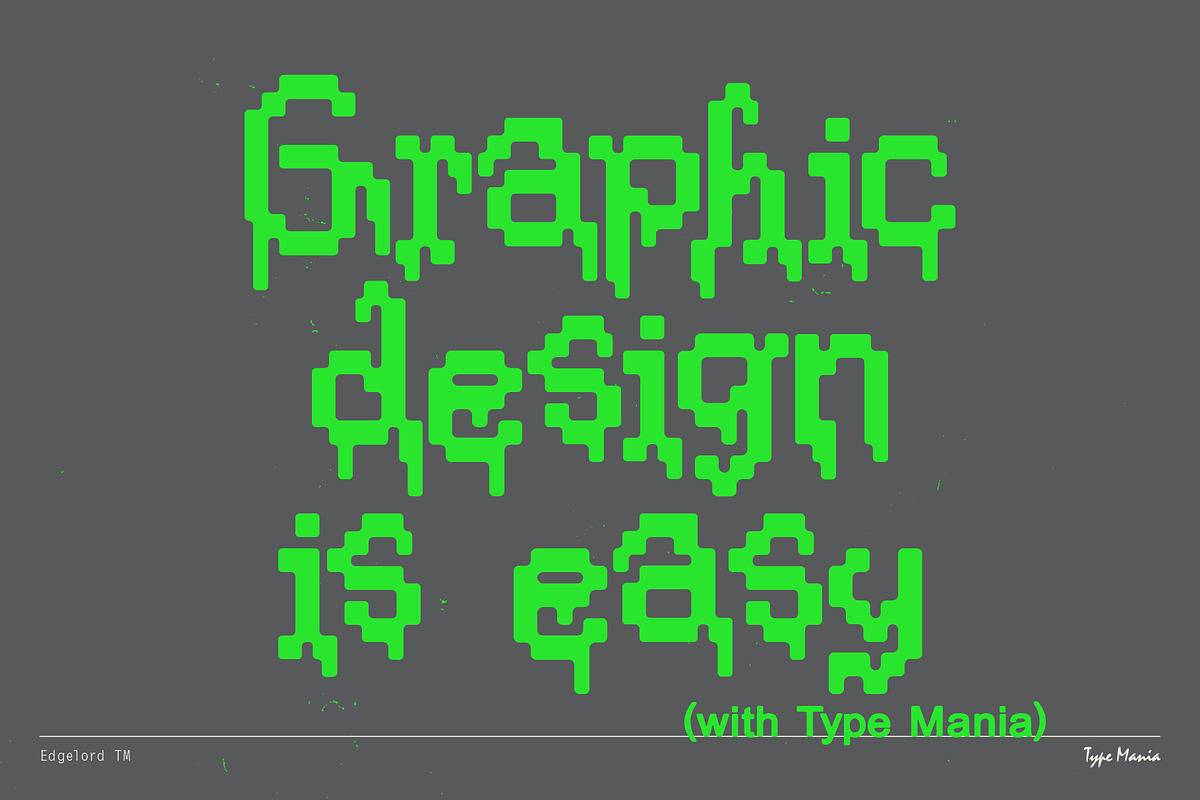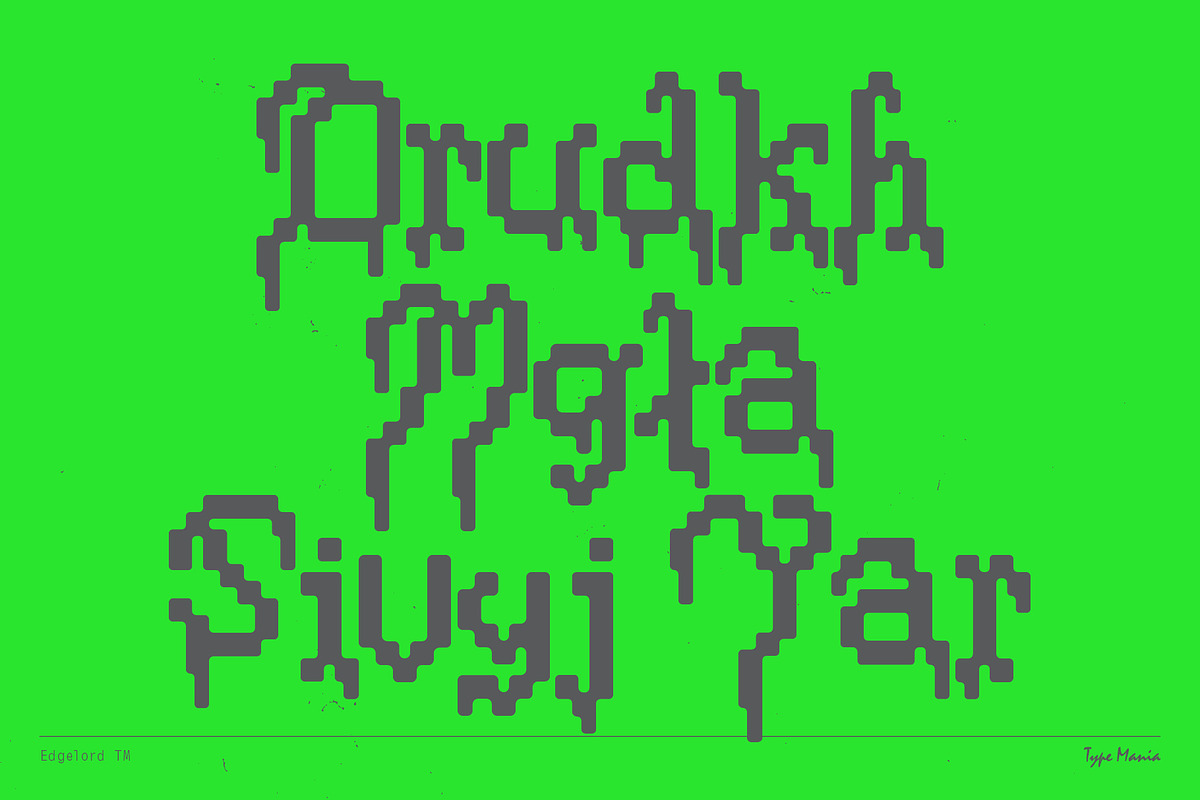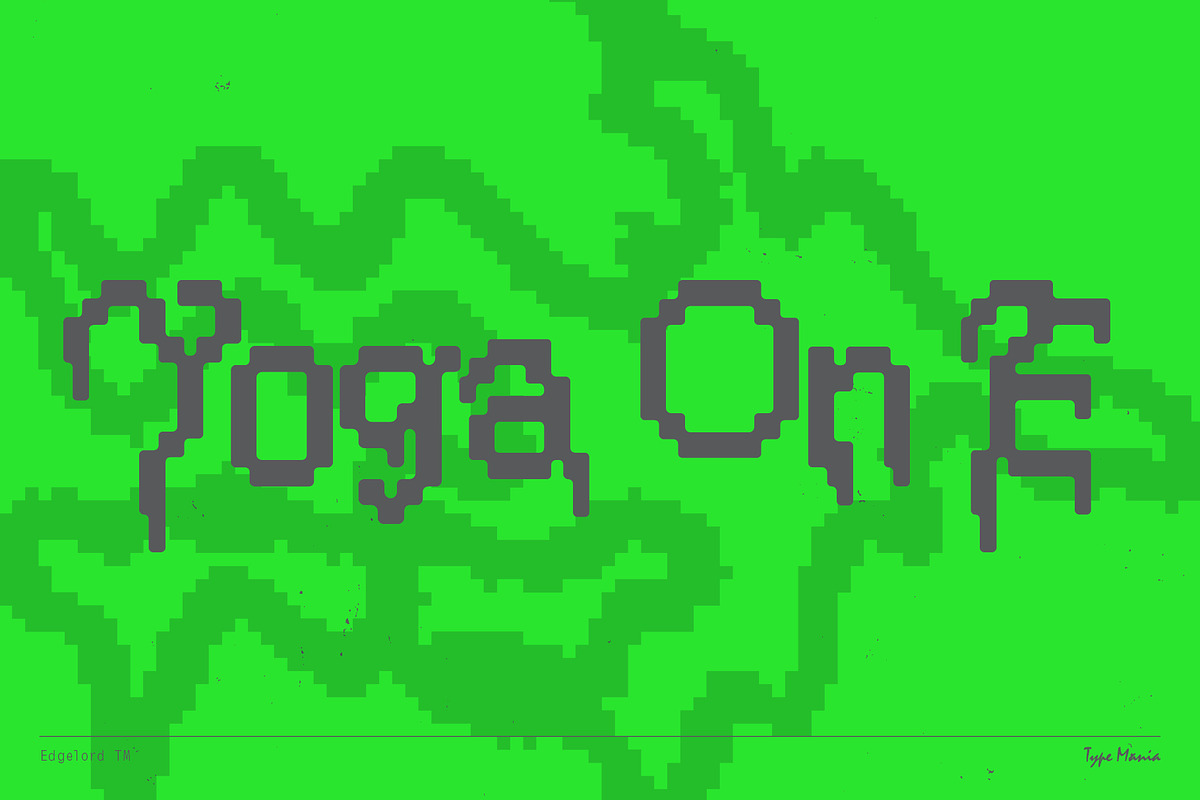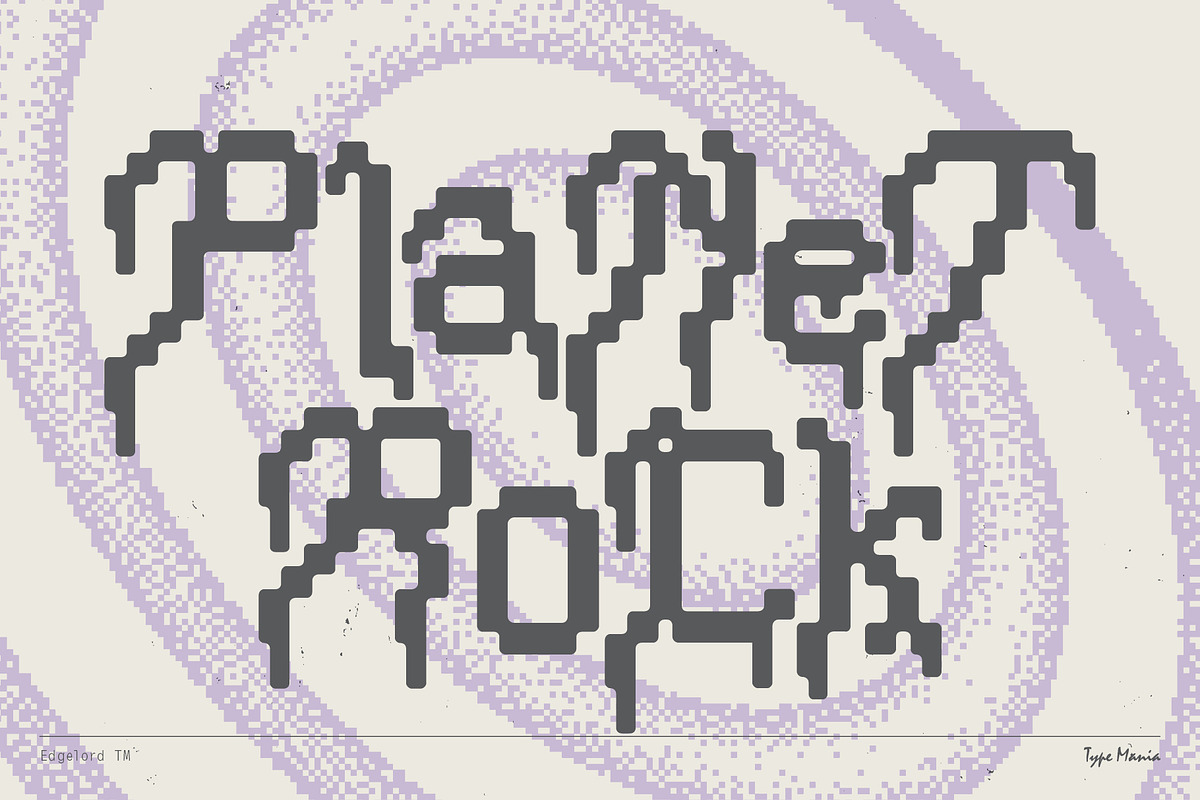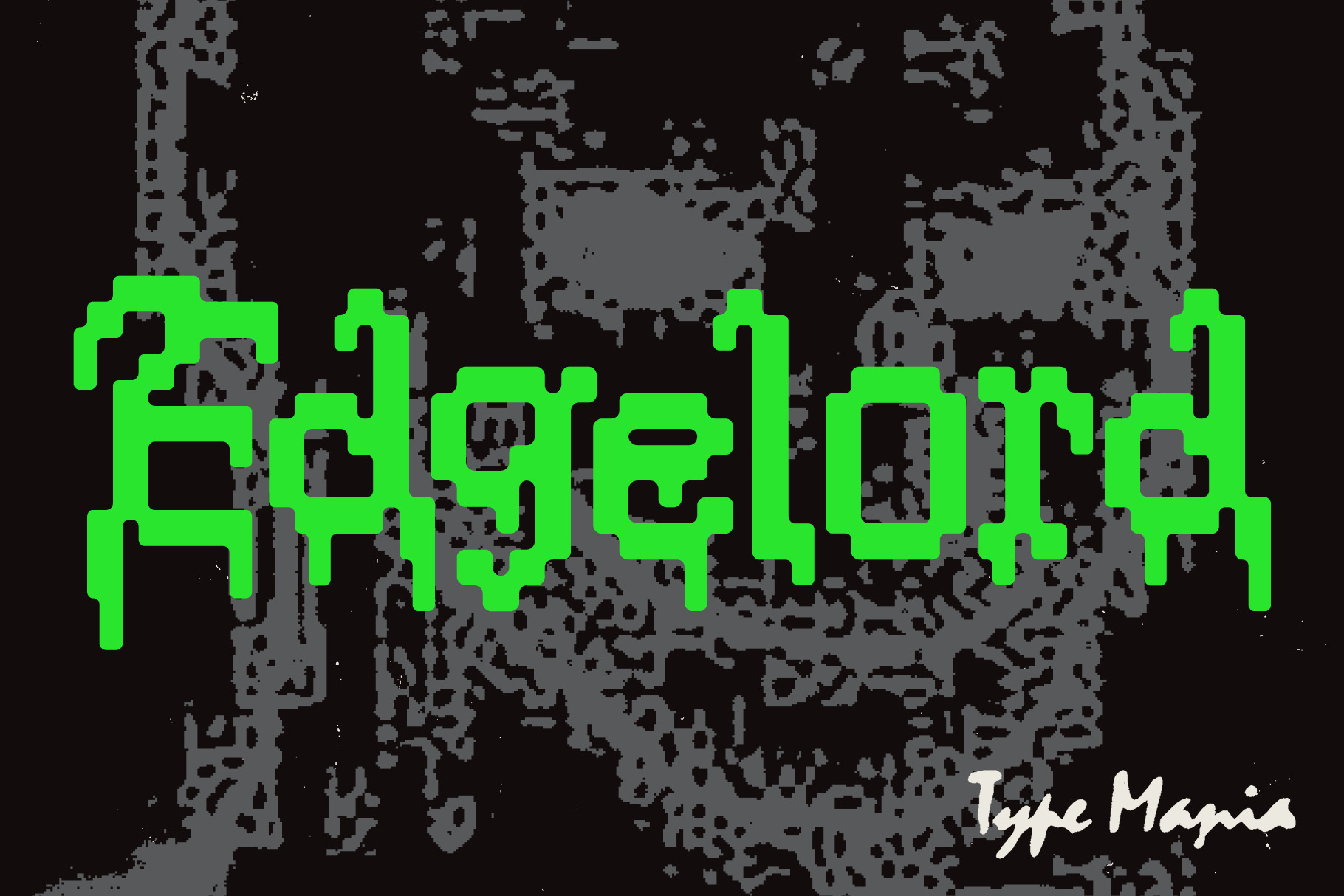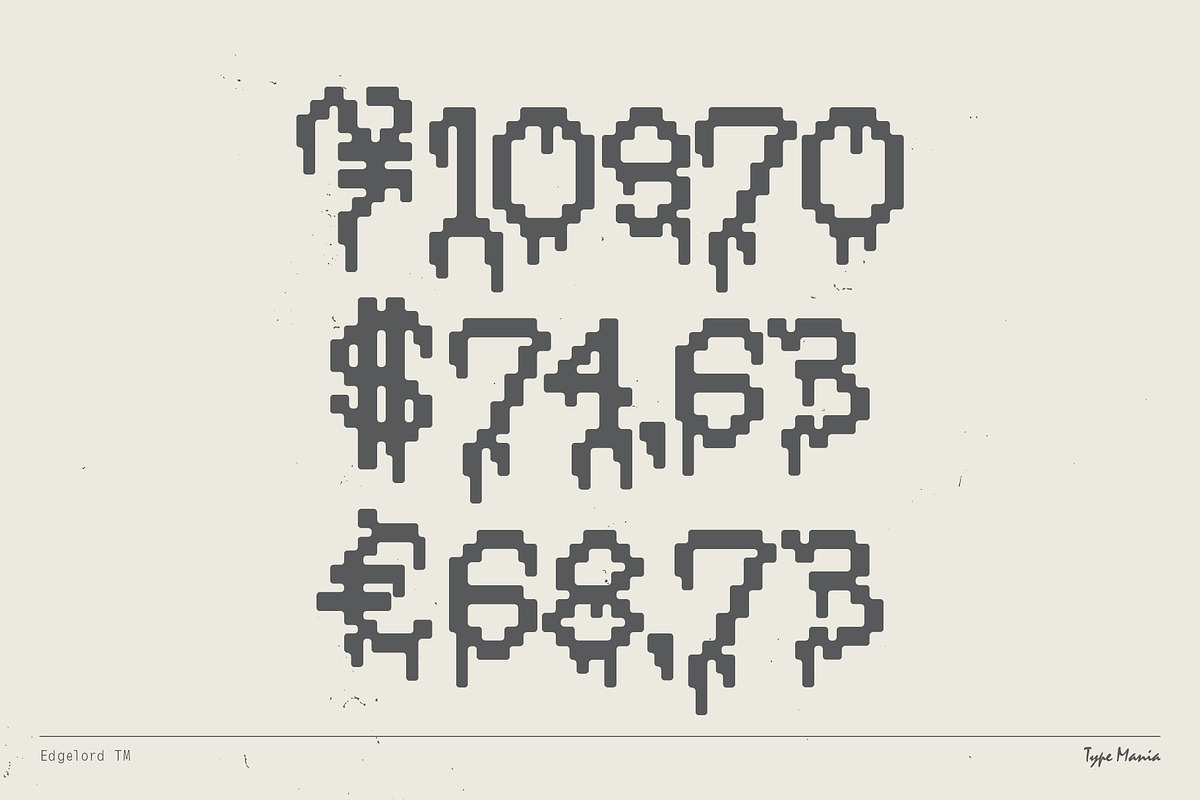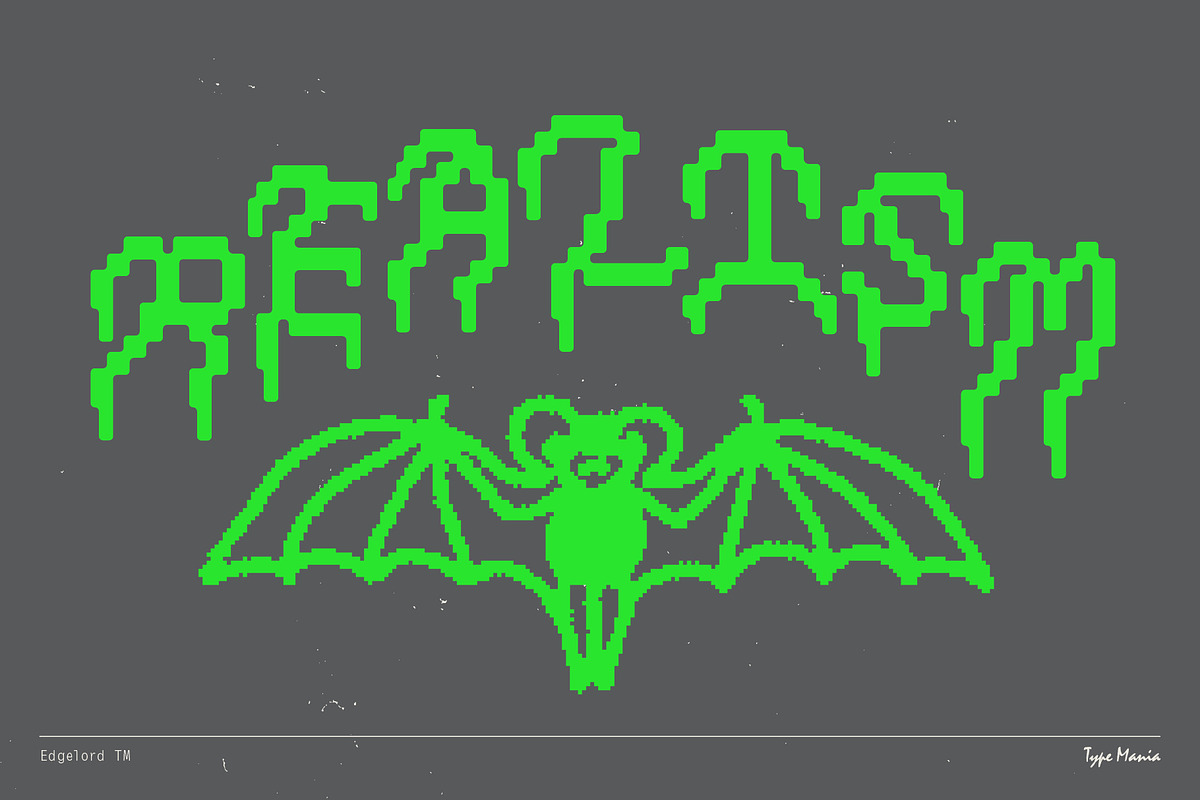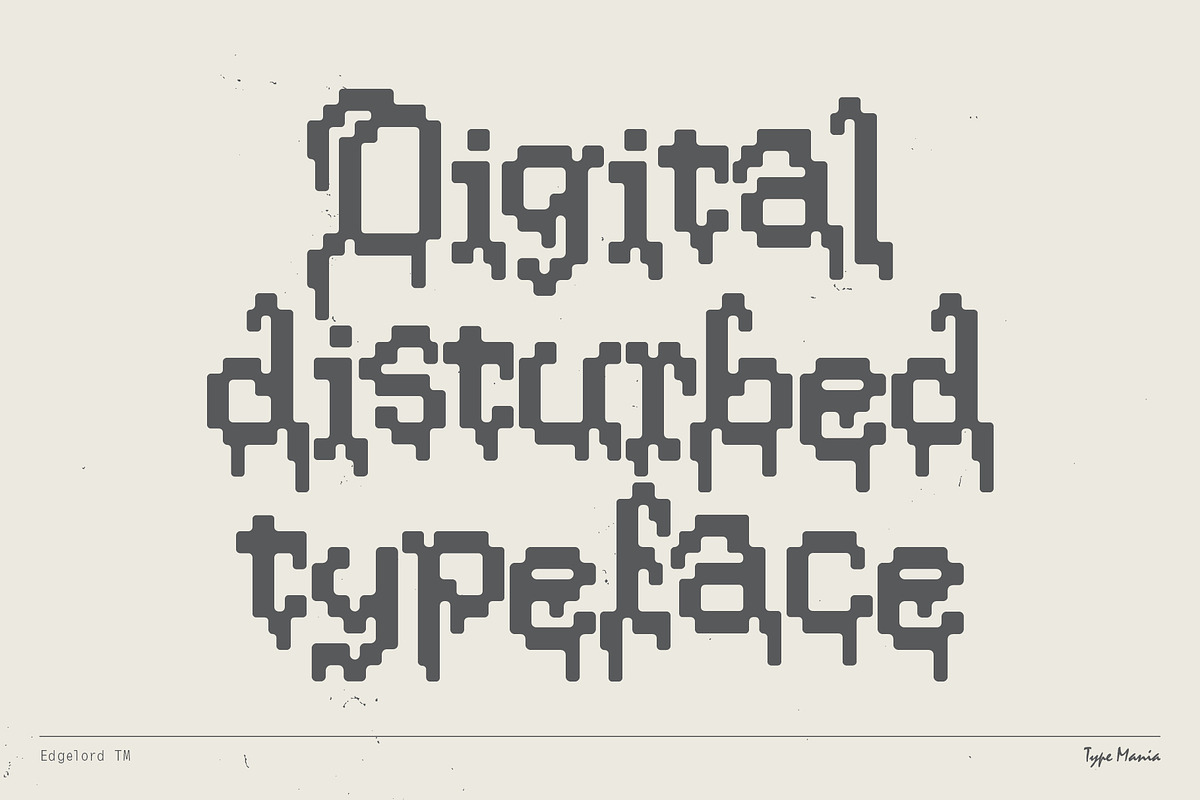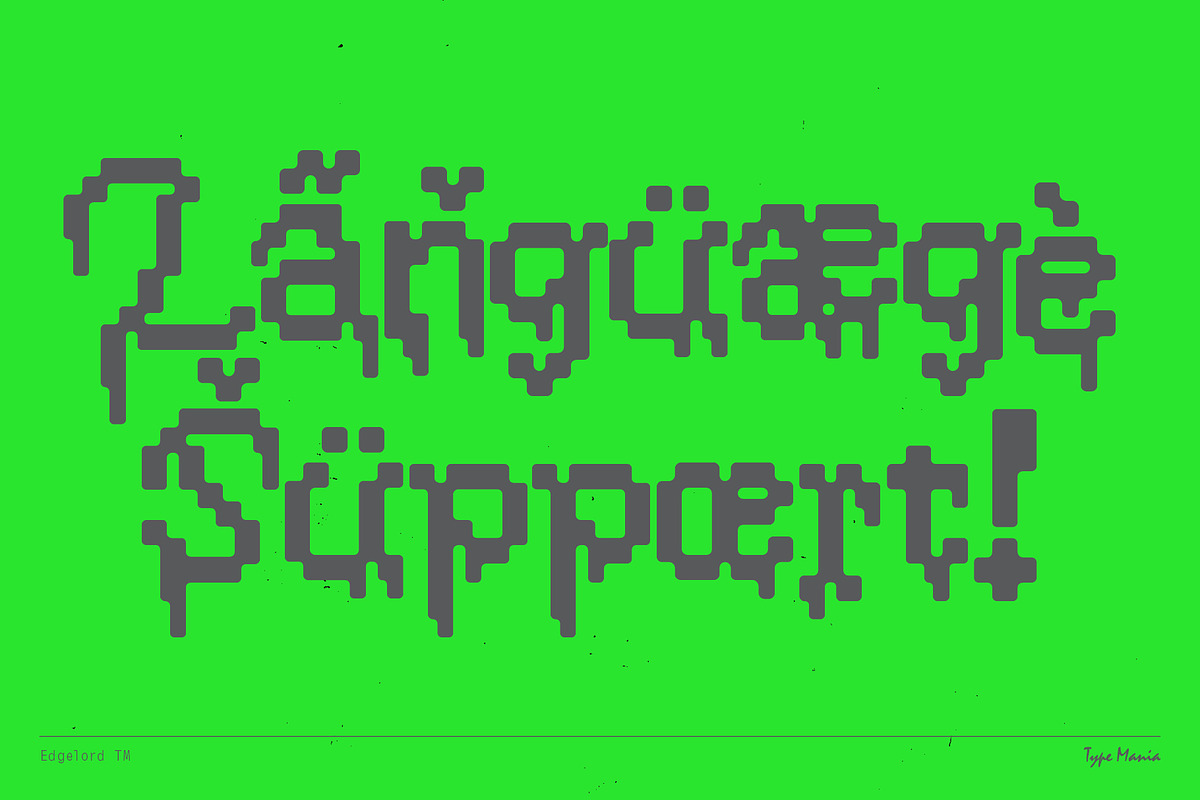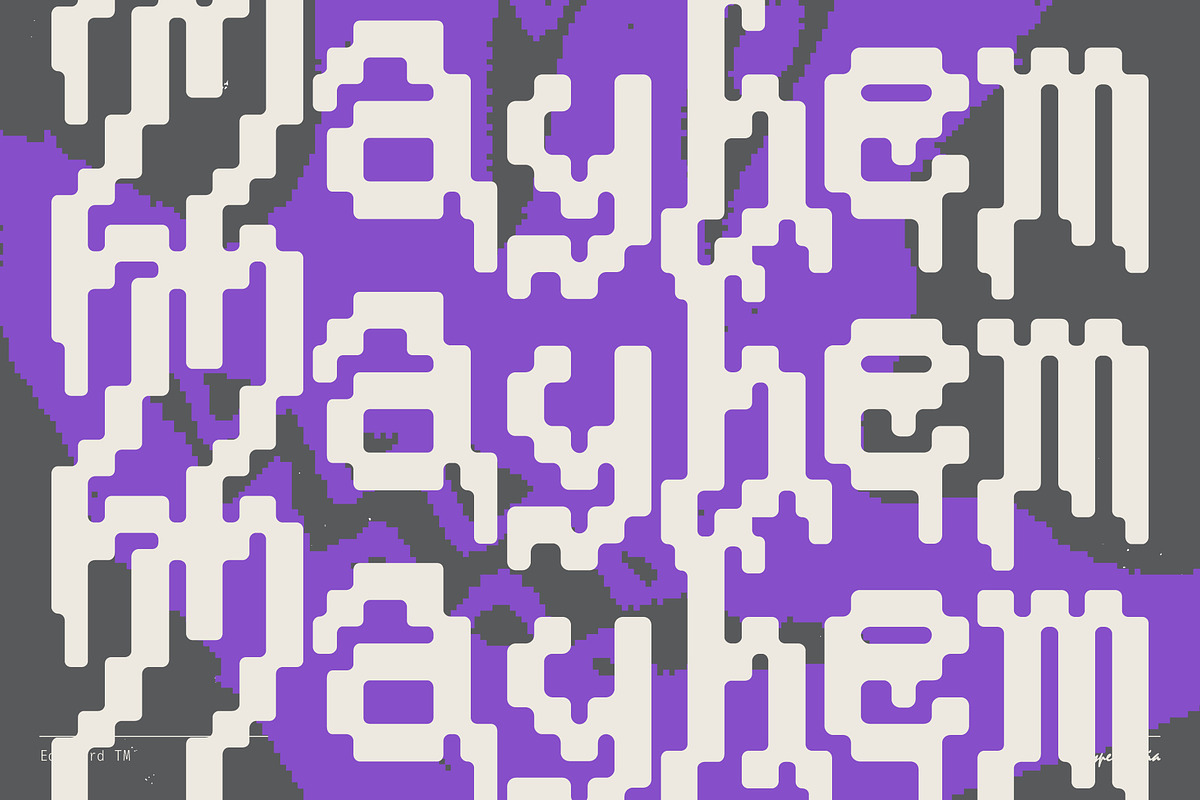
Edgelord TM – Medieval 8-bit Font
Edgelord TM blends medieval typography with 8-bit aesthetics, creating a typeface that stands out. Good for branding, editorial, a flyer for that lo-fi house party at yo mama's basement... Give it a try ⚔️